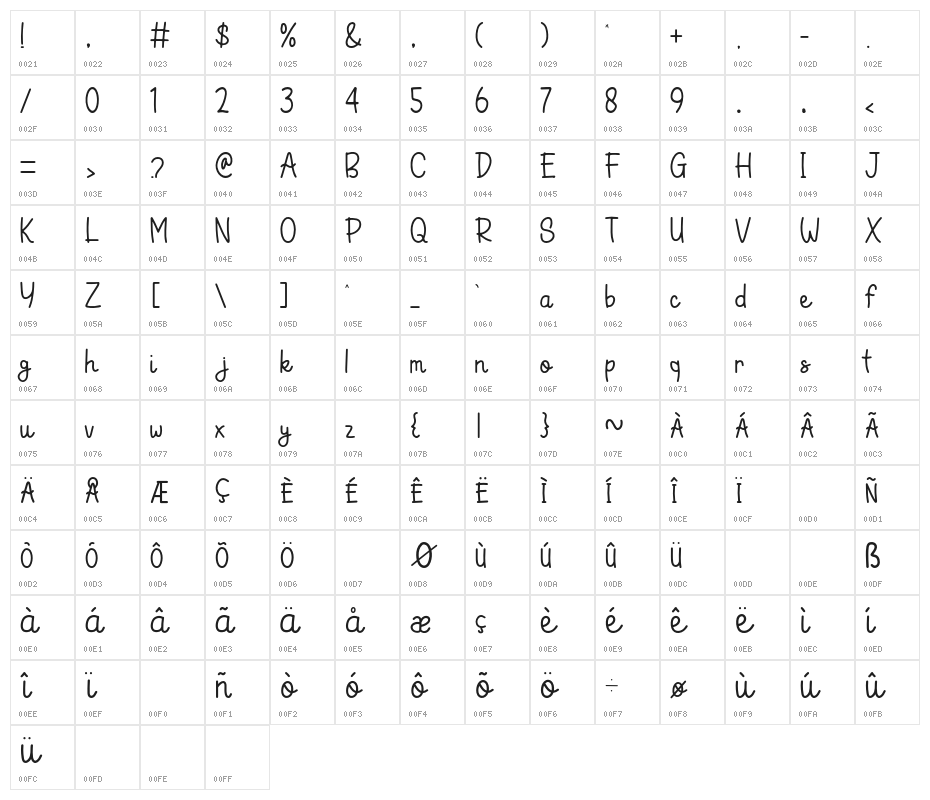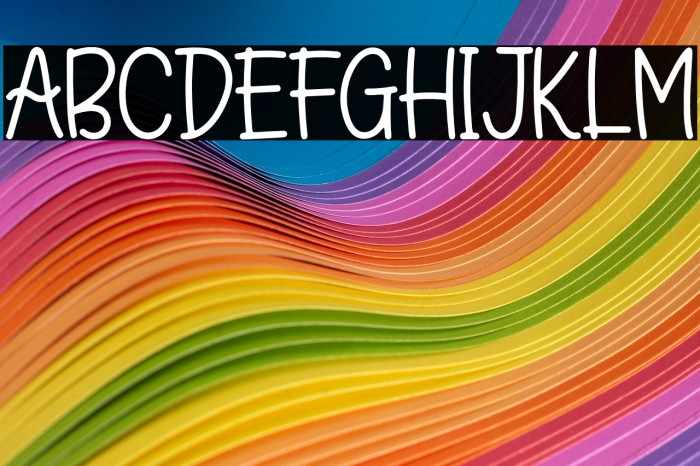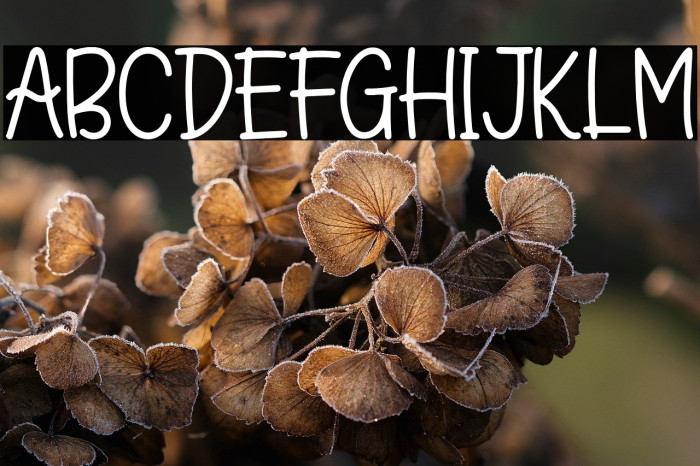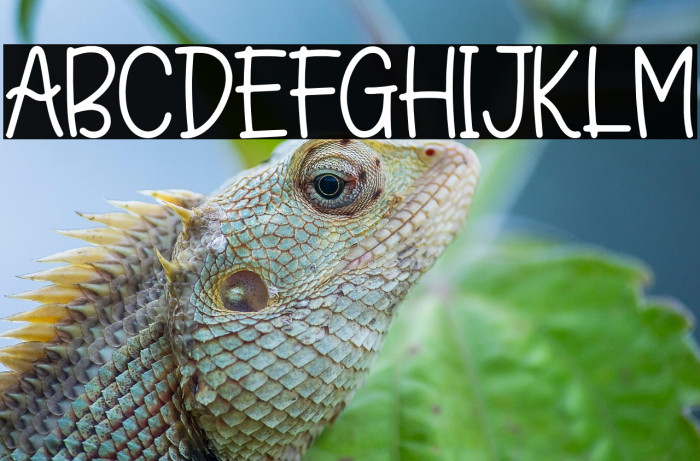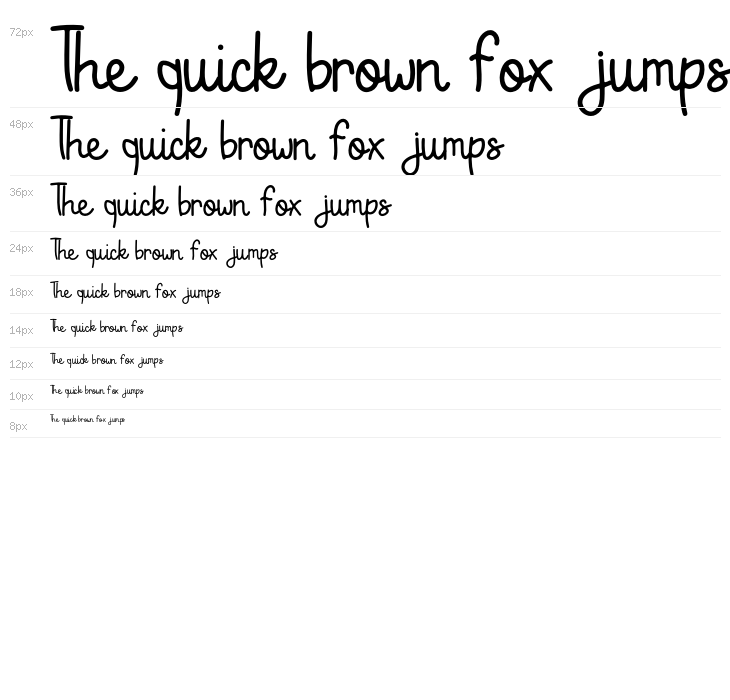
Black Tea Font
Black Tea Description
This font features a playful and casual handwritten style, characterized by its smooth, flowing curves and slightly irregular letterforms. The uppercase letters are bold and prominent, while the lowercase letters maintain a consistent height, giving the font a balanced appearance. The numbers are clear and legible, matching the overall informal aesthetic. Special characters are included, maintaining the same whimsical style. This font exudes a friendly and approachable vibe, making it suitable for projects that require a personal touch.
| Overall Style | Casual, Playful |
| Use Case | Headlines, Informal text, Branding |
| Proposed Projects | Ideal for greeting cards, children's books, casual branding, and social media graphics. |